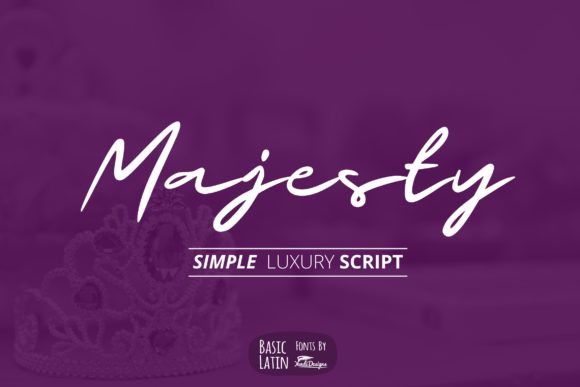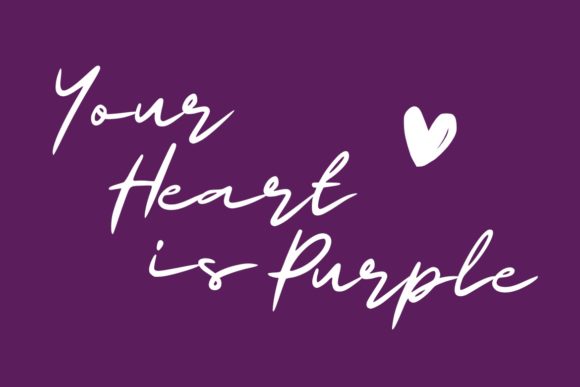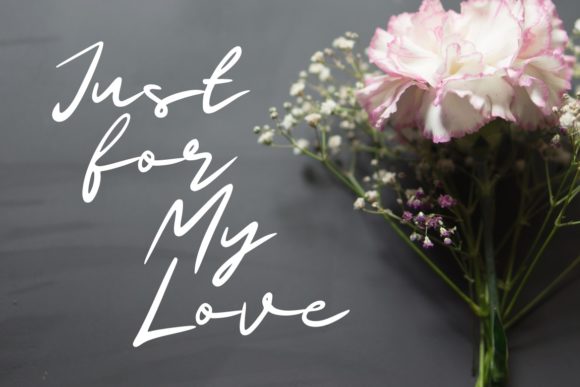
Majesty Font
About Majesty Font
Majesty is an elegant handwritten font, perfectly made for a variety of projects such as logos, posters, invitations and more.Give your next design a personal touch with this beautiful font.